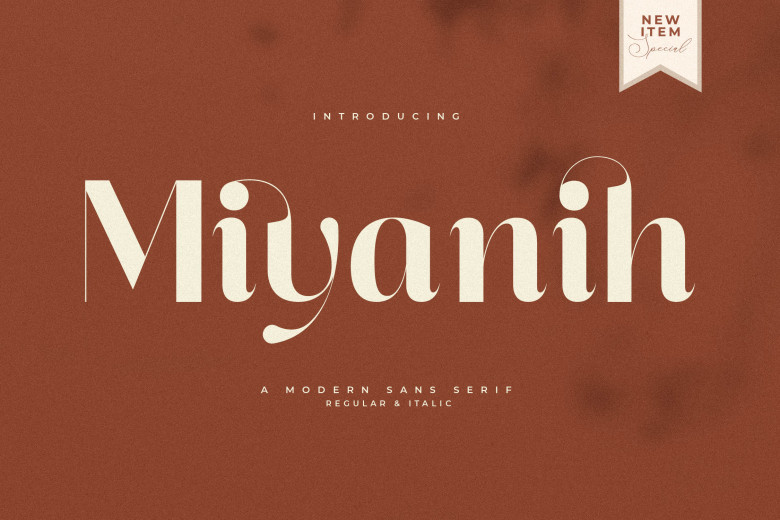
Miyanih Font
Miyanih is a modern and stylish serif font of its own form. This typeface is best suited for elegant or luxurious logos, fashion brands, magazines, apparel, lettering jobs, quotes, and more.
Miyanih Serif Font